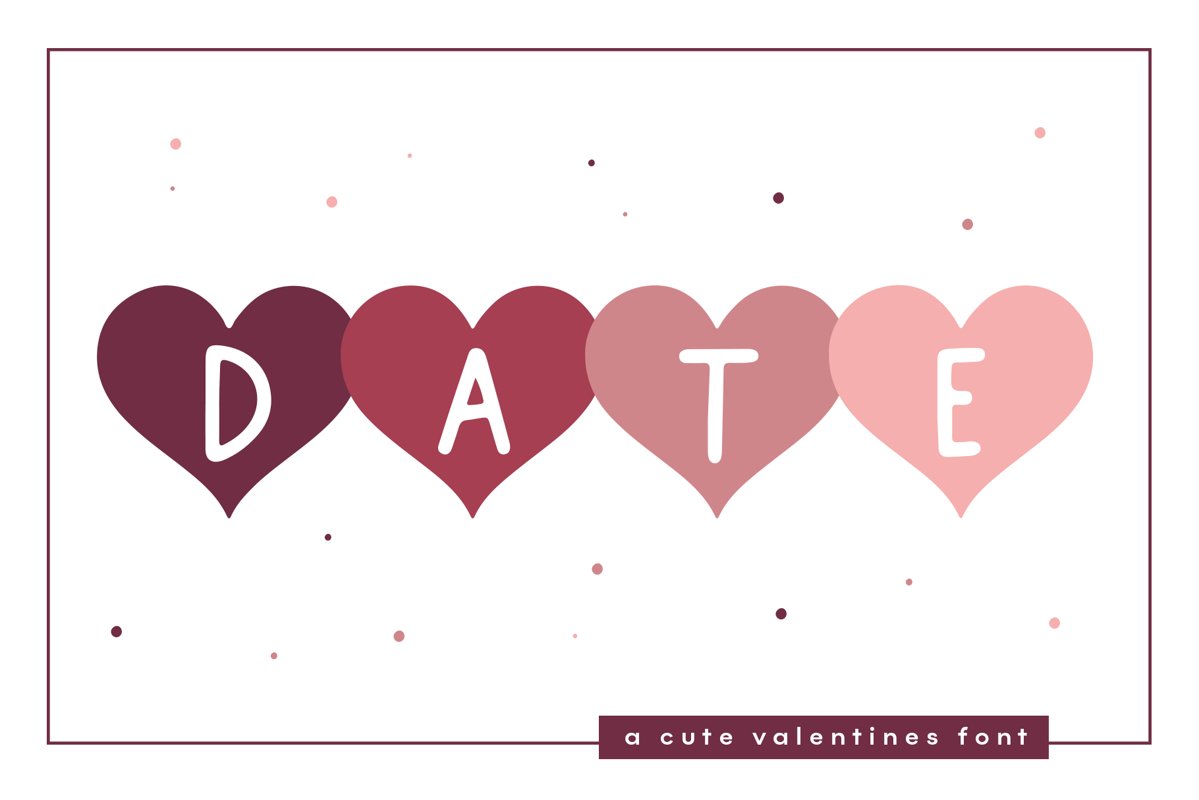
Date is a fun valentine's day font! Each letter is inside of a heart!
This font is perfect for quotes, shirt designs, websites, branding, children's designs, svg designs, blogs, logos, invitations and more!